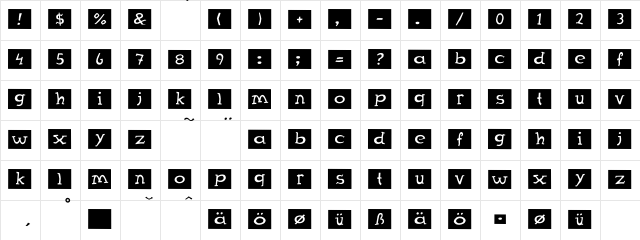
Mex Regular-Two Free Font
Mex Regular-Two
Style: Regular-Two
Mex Family
Mex Regular-Two
Design Context for Mex
Mex is a composed and adaptable typeface that performs quietly and consistently across a wide range of design contexts.